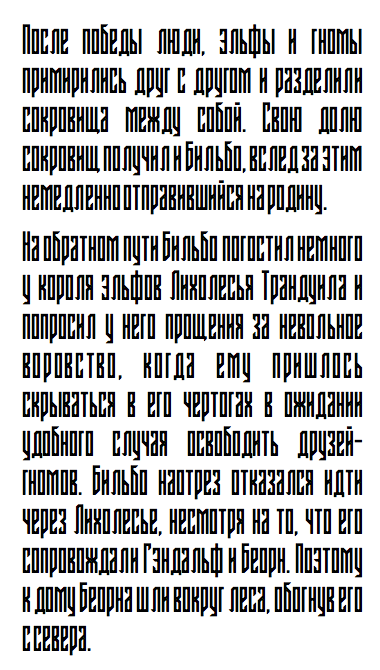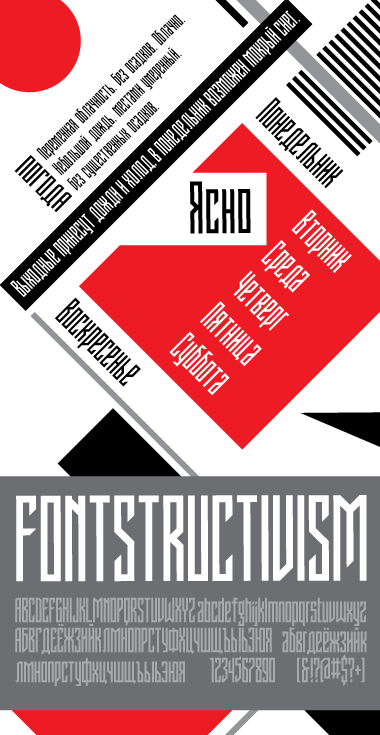
• This project was inspired by early 20th century constructivism, and especially the works of El Lissitzky.
Congratulations! FontStruct Staff have deemed your FontStruction worthy of special mention. “Fontstructivism ” is now a Top Pick.
A sophisticated, efficient, and utterly monolithic design. I am particularly enjoying the cyrillics, and even more, the beautifully “hinted” pixel display. 10/10!
Nice and efective sample too! Very stylish work. (Every time I see it, I like it more.)
love the cyrillique as well
Thank you for your comments. This project was inspired by early 20th century constructivism, and especially the works of El Lissitzky. This demo pic largely follows the style of his artworks, without any political substance: the Russian text is a mashup of the latest weekly weather forecast.
(The first sample, also in Russian, is from the synopsis of The Hobbit, Tolkien's famous work. Not political either.)
I agree with others that this work is absolutely strong and stylish!!!
И крутой плакат вышел
What a stylish demo pic!